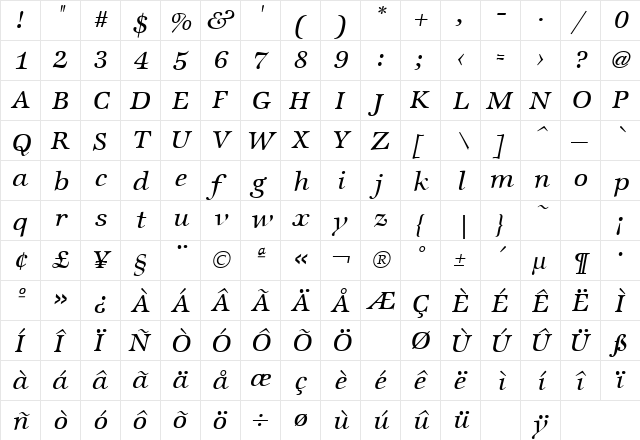
Zapf International Italic
Design Context for Zapf International Typeface
Zapf International is a composed and adaptable typeface that performs quietly and consistently across a wide range of design contexts. Its italic angle brings a sense of urgency and motion to the letterforms.
Pro Tip: Use Zapf International for emphasis, pull quotes, and subheadings where its slanted energy can add rhythm to the layout.